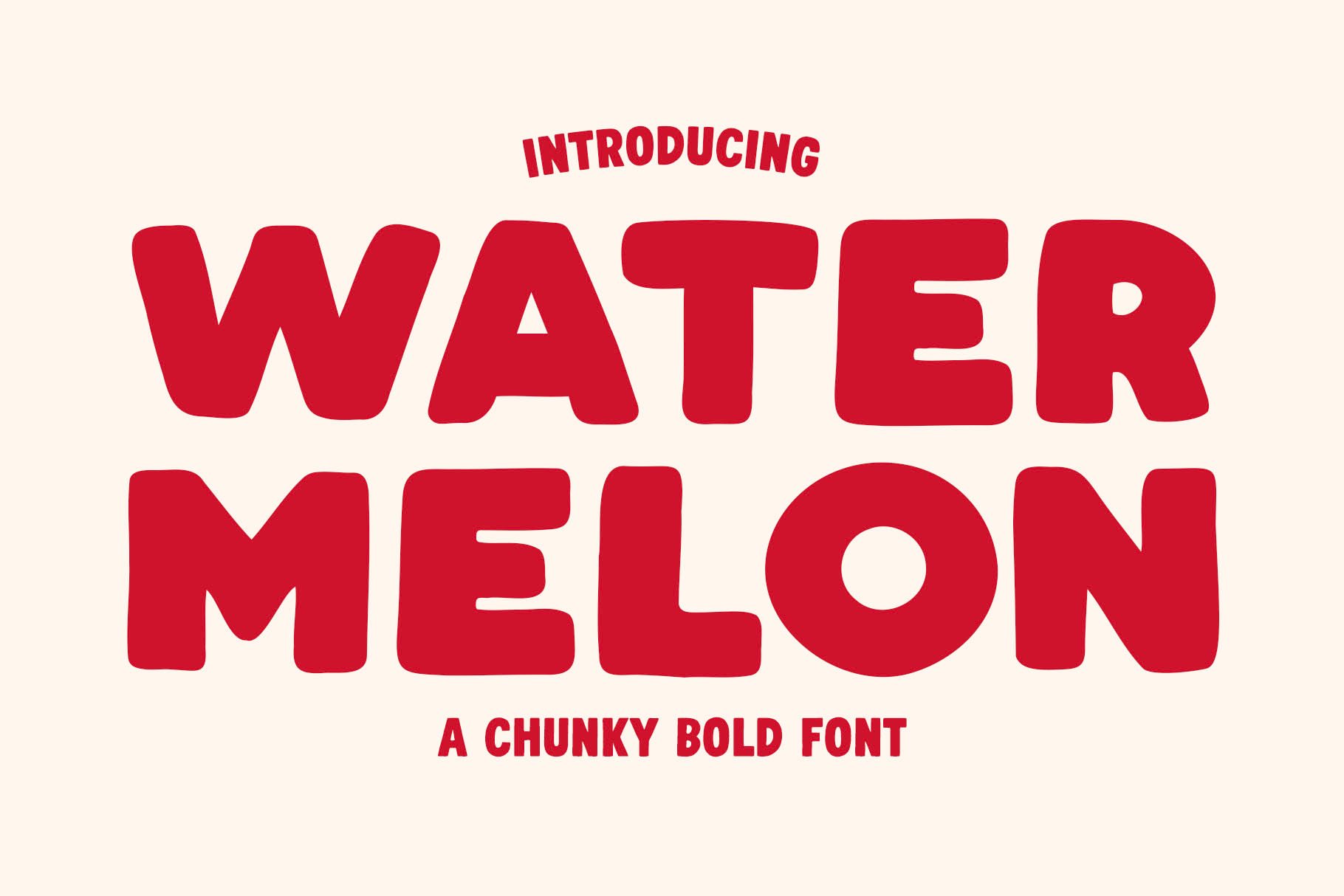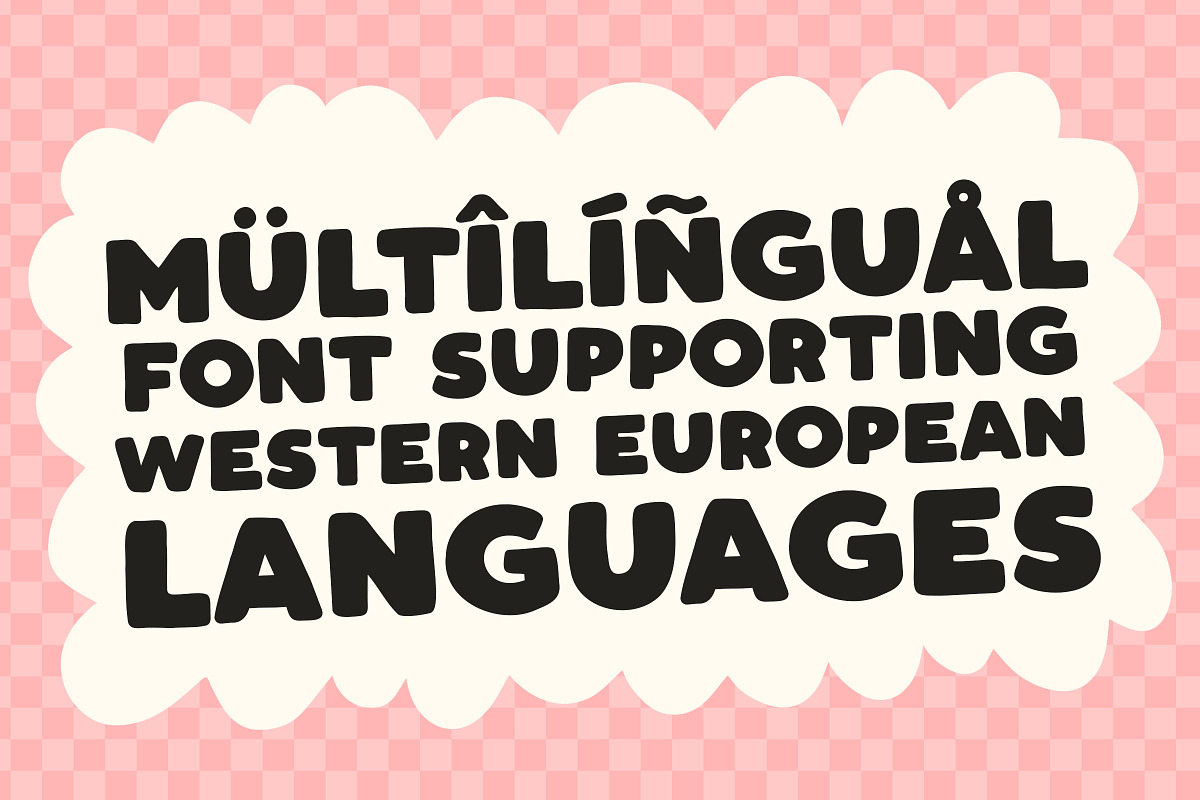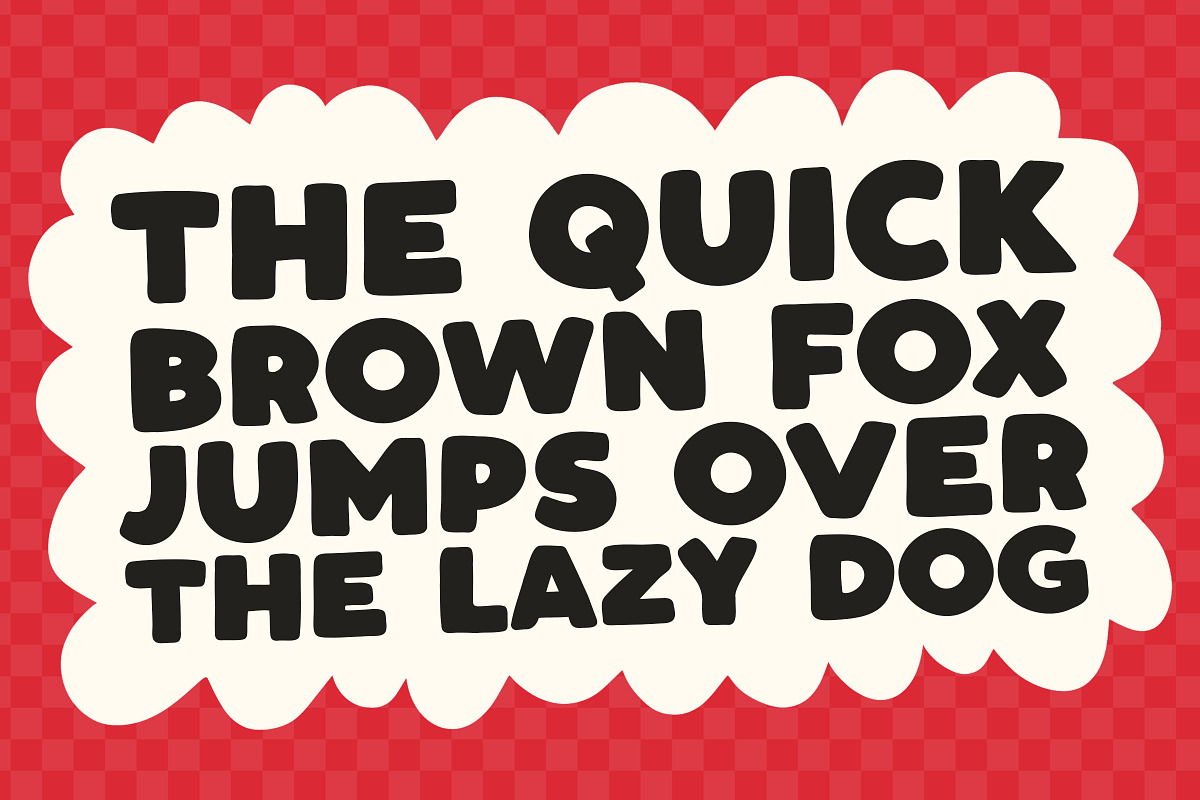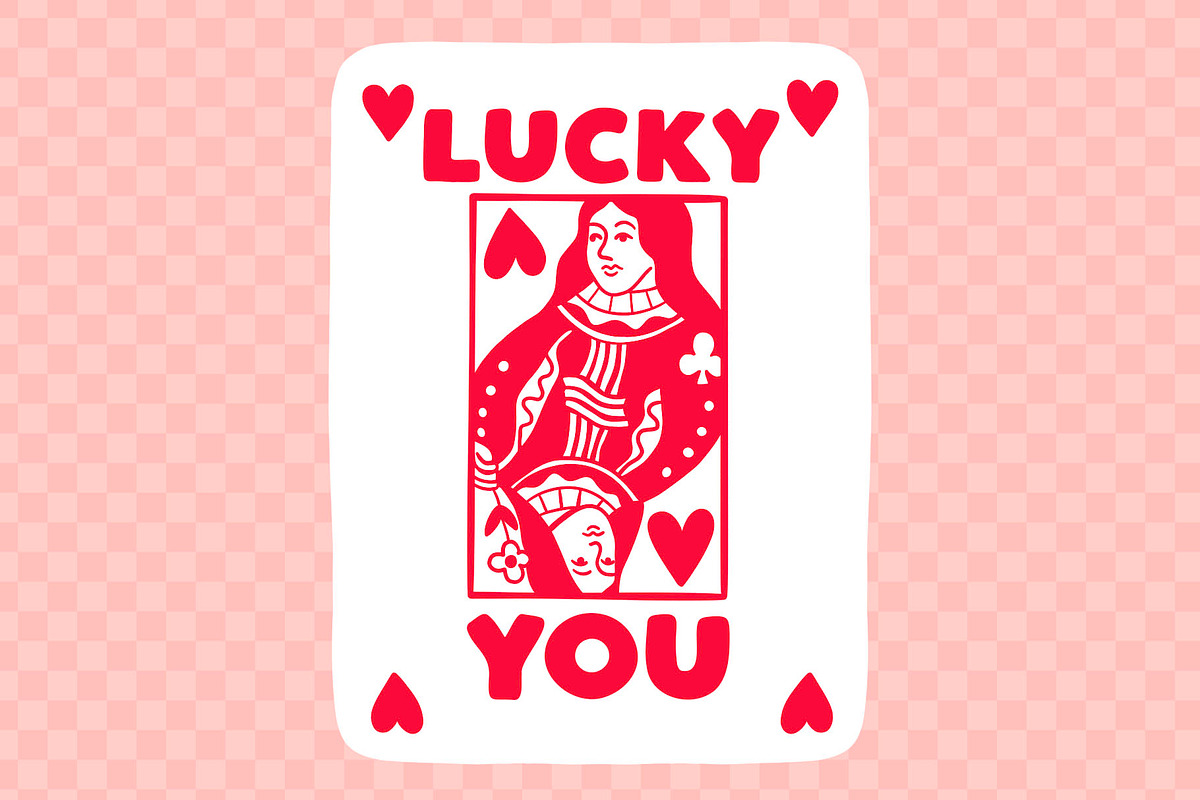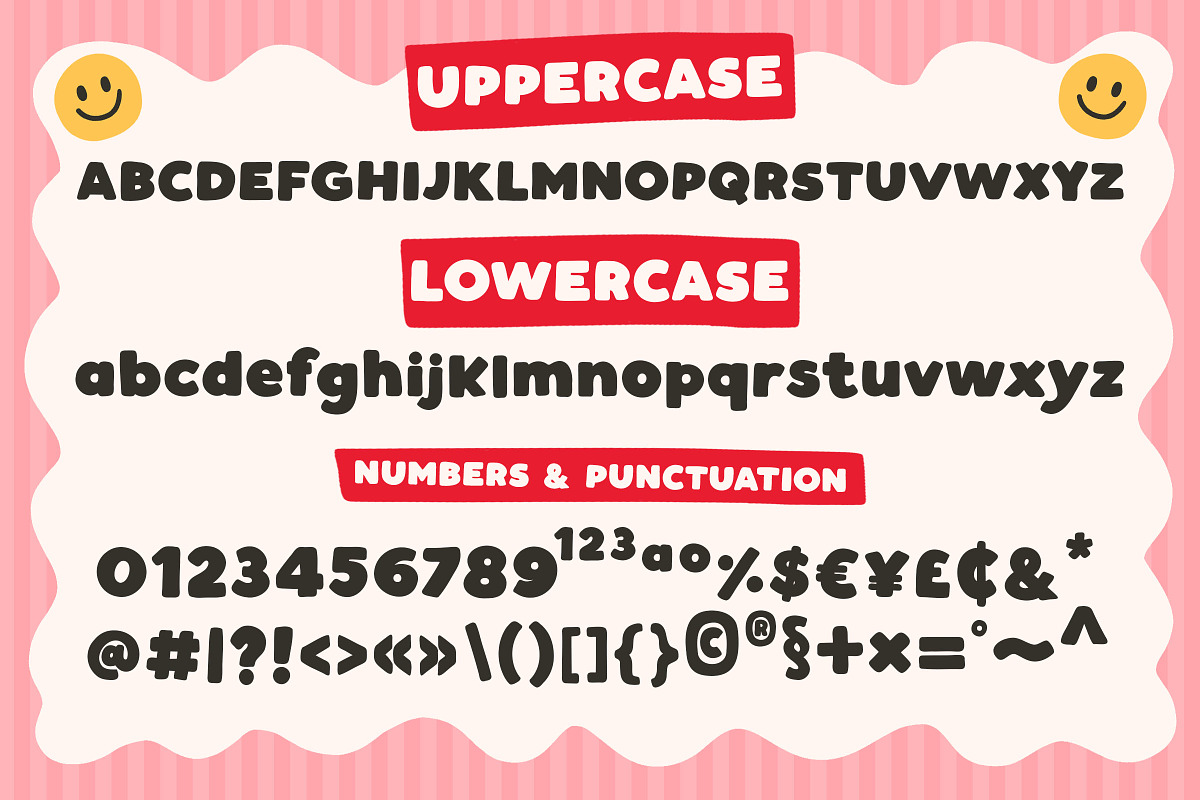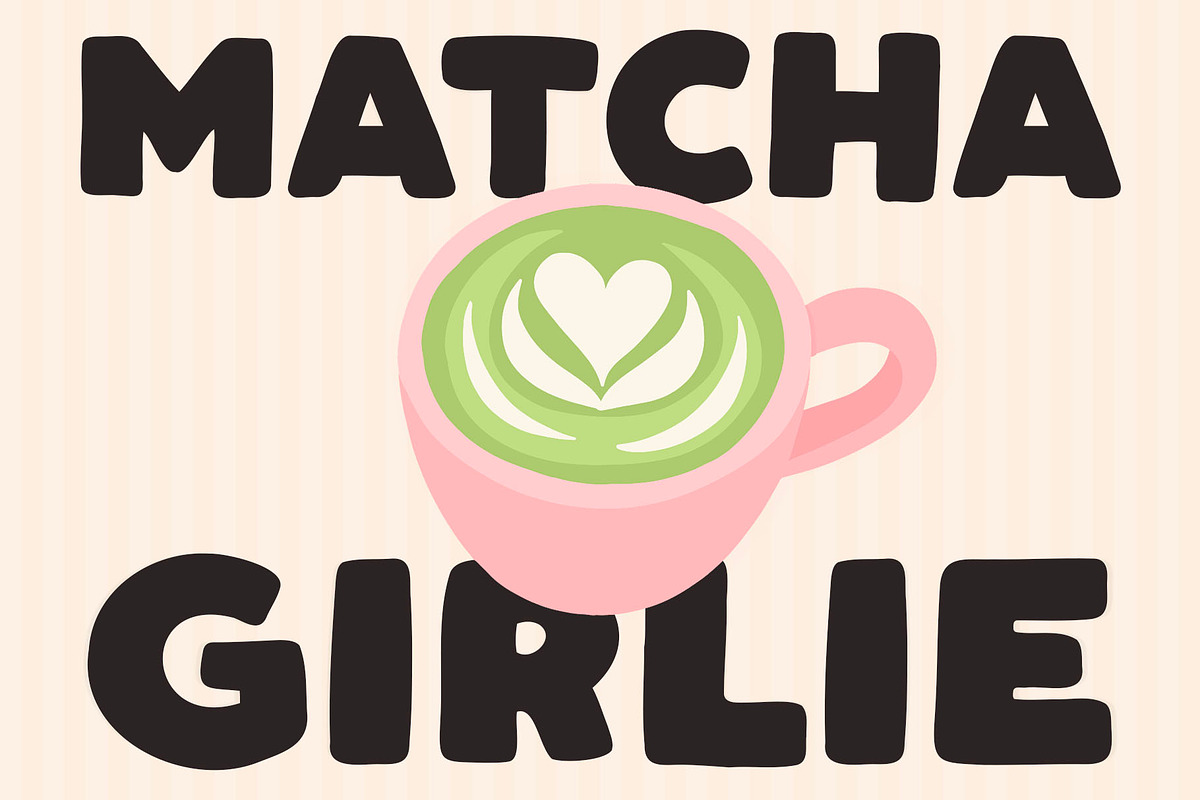
Watermelon - A Chunky Bold Font
Watermelon is a chunky bold typeface perfect for any fun quirky design work! This font can be used for anything such as t-shirt designs, phone cases, greeting cards, invitations, mugs and so much more! Get creative!